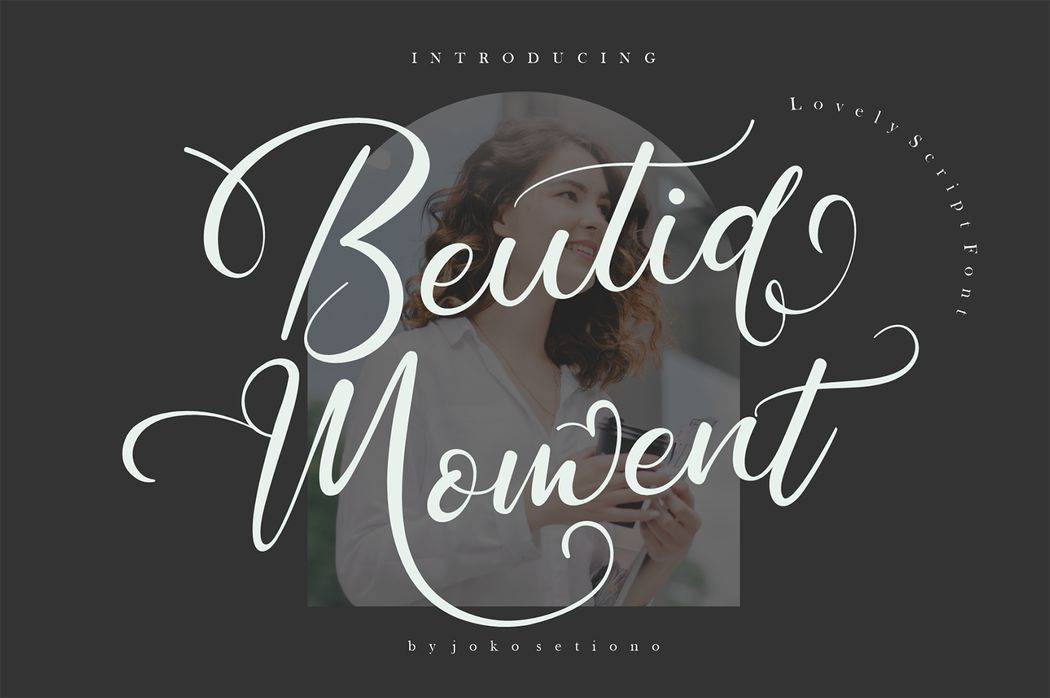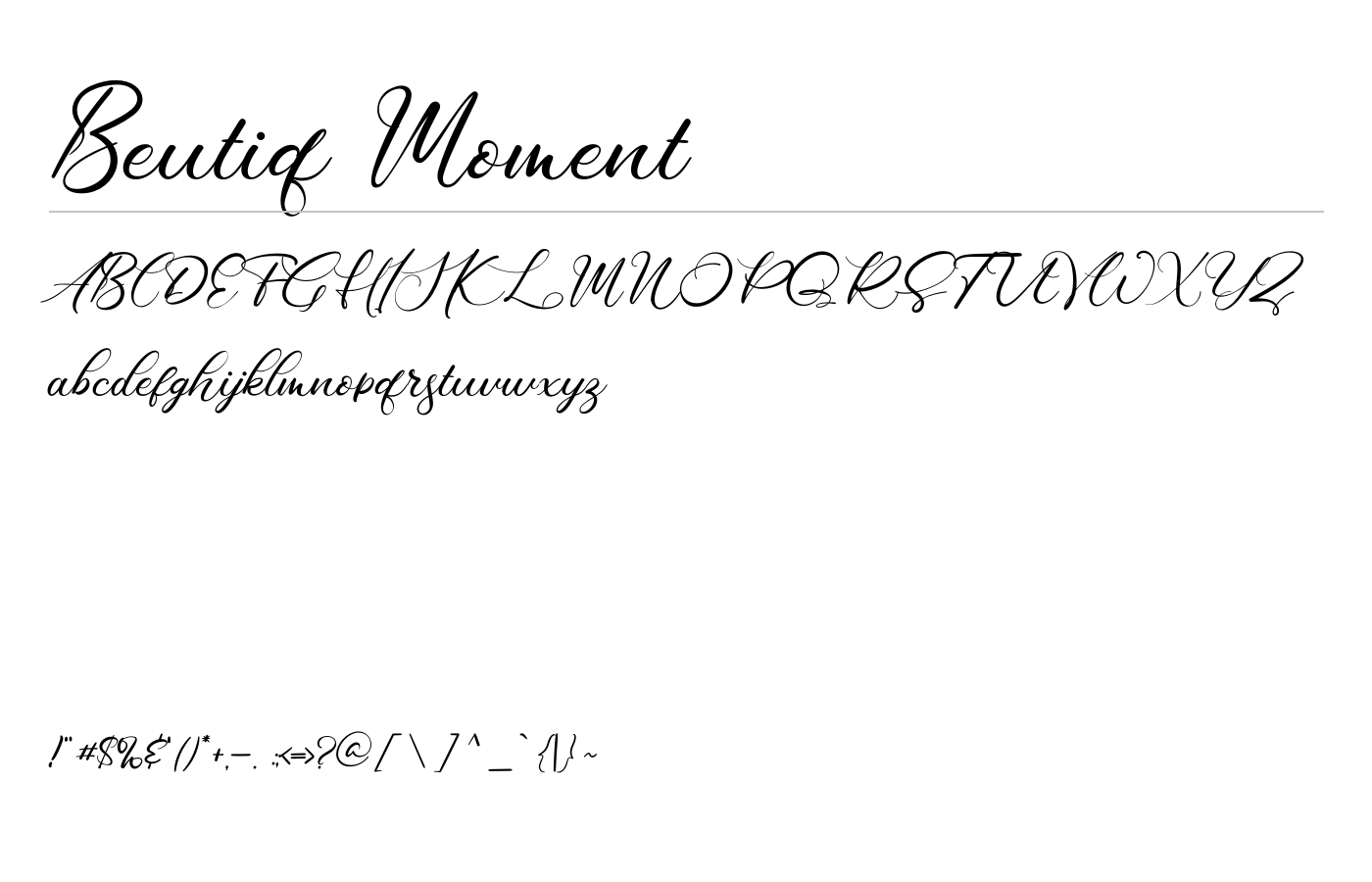
Beutiq Moment is an elegant, flowing script font characterized by its delicate, high-contrast strokes and graceful, swirling letterforms. With its refined, calligraphic style and natural handwritten feel, it conveys sophistication and charm, making it ideal for wedding invitations, luxury branding, and feminine editorial designs. This font works best in decorative, headline-focused applications where its intricate details can shine.
Beutiq Moment Font
About Beutiq Moment Font
| Font family | Beutiq Moment Font |
| Designer | joko setiono |